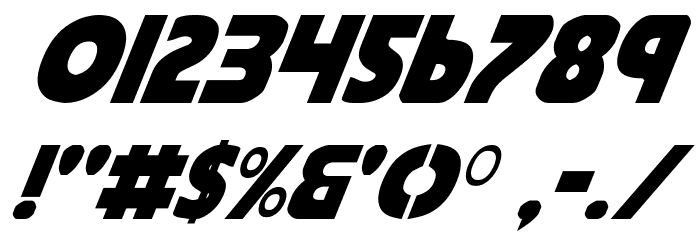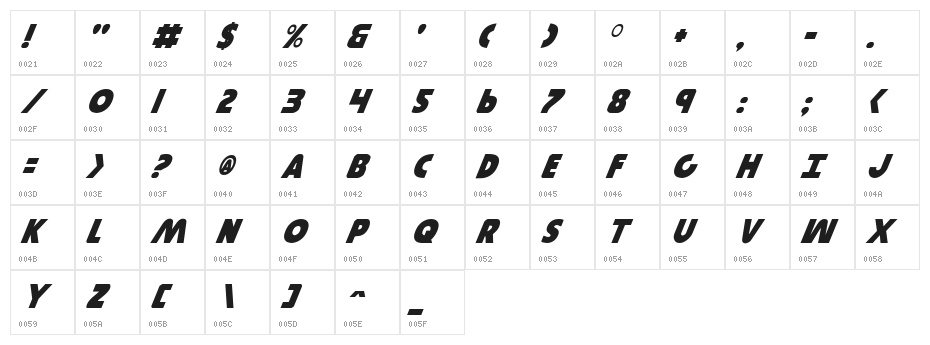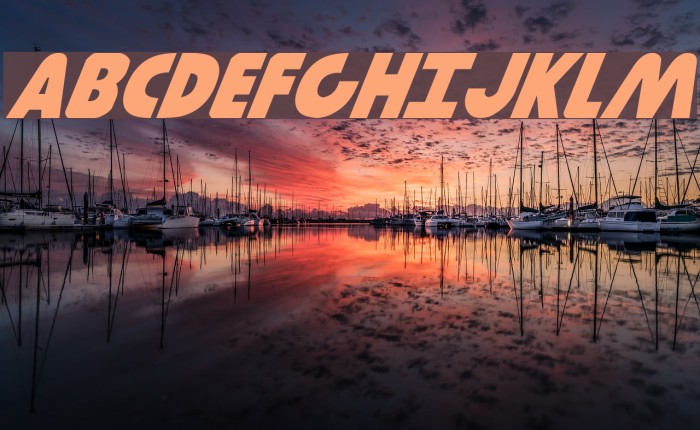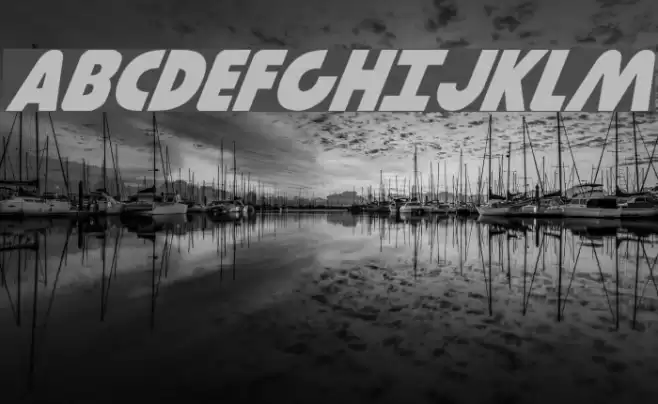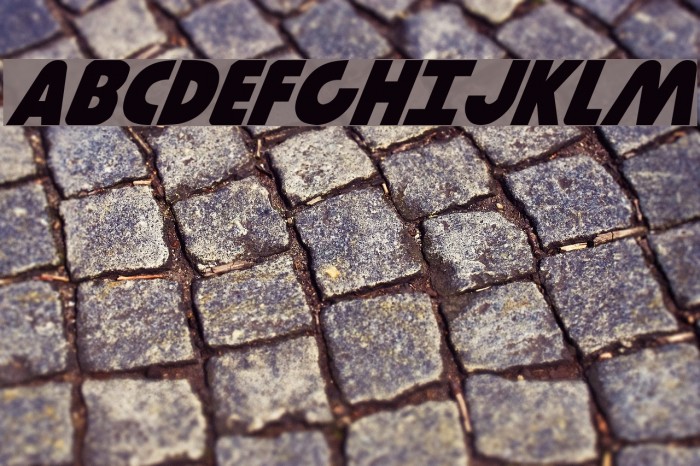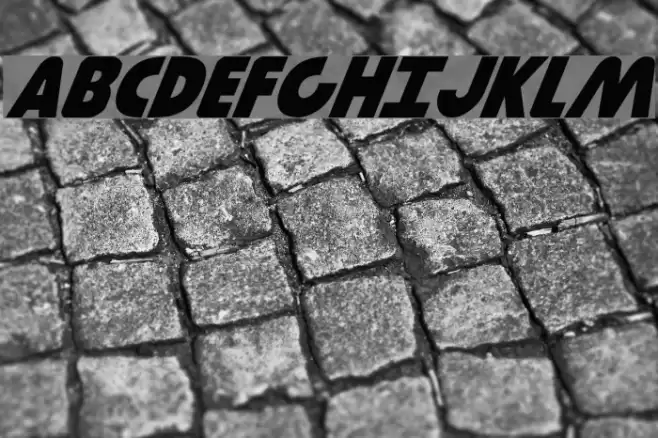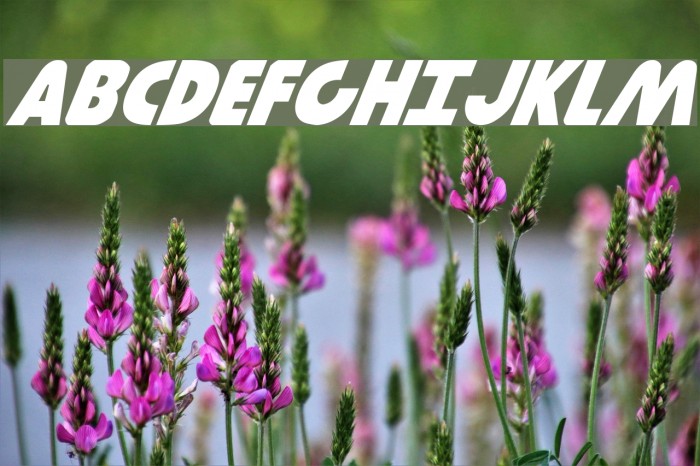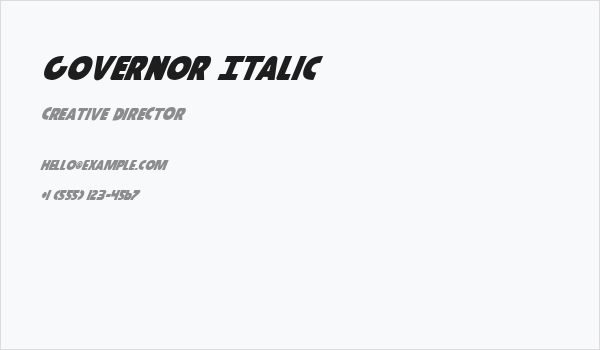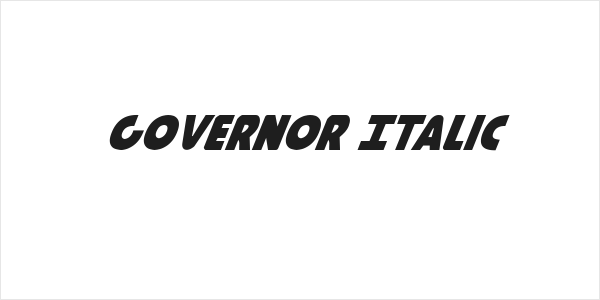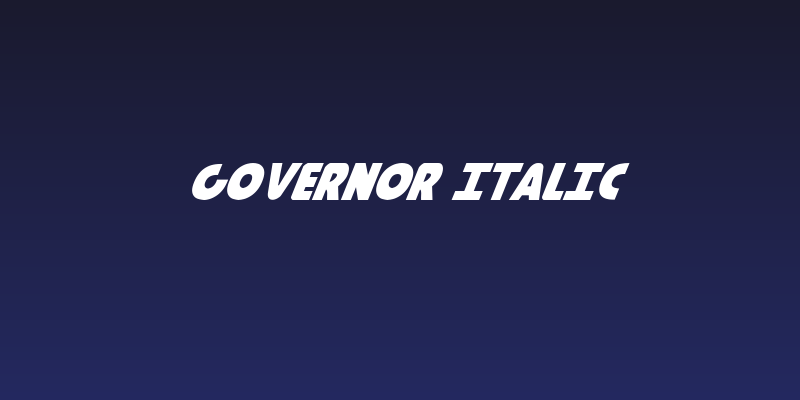
Governor Italic Font
Governor Italic Description
This font features a bold and dynamic style with a strong italic slant, giving it a sense of movement and energy. The characters are thick and robust, making them highly visible and impactful. The strokes are consistent in weight, providing a uniform appearance across all characters. The design is modern and sleek, with a slight retro flair that adds character without compromising readability. The uppercase and lowercase letters maintain a cohesive look, while the numerals and special characters are designed to match the overall aesthetic seamlessly.
| Proposed Projects | Ideal for sports branding, dynamic posters, and eye-catching headlines. |